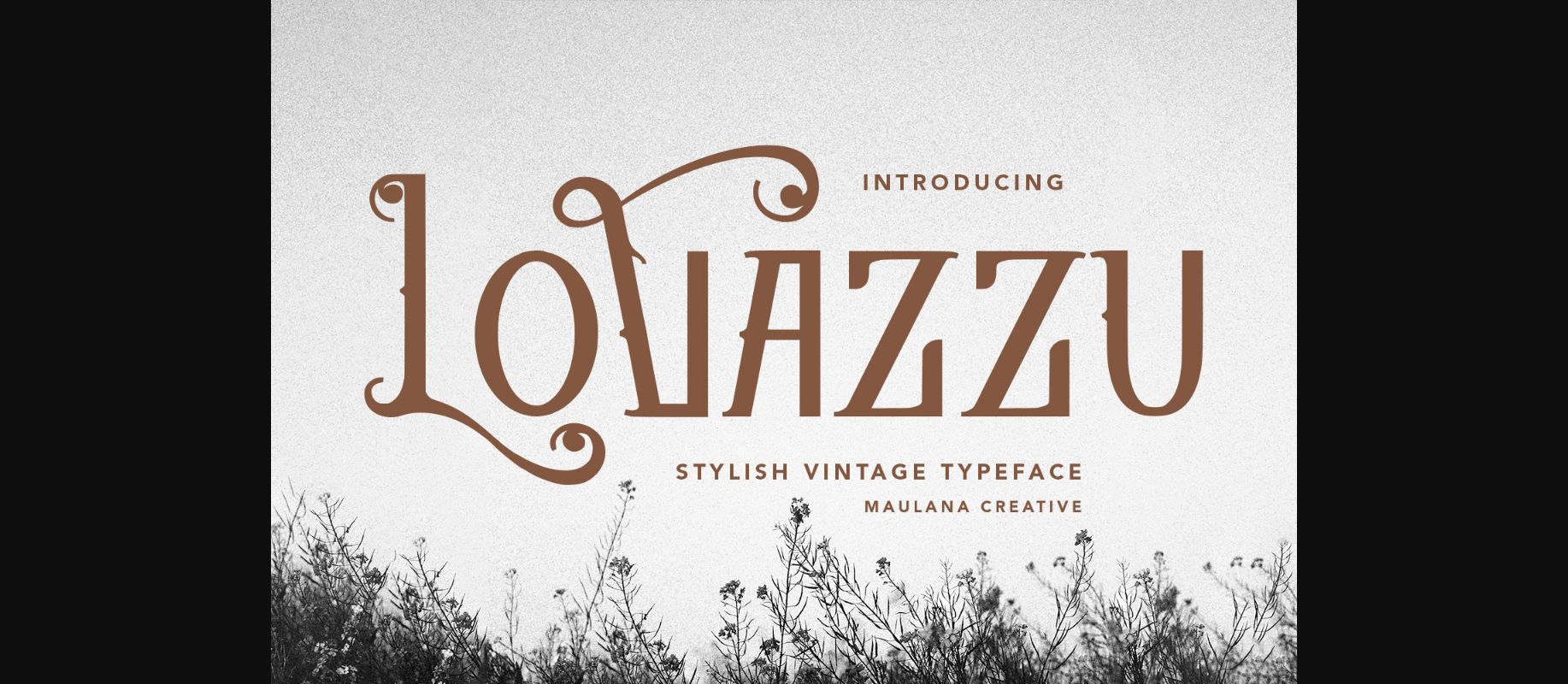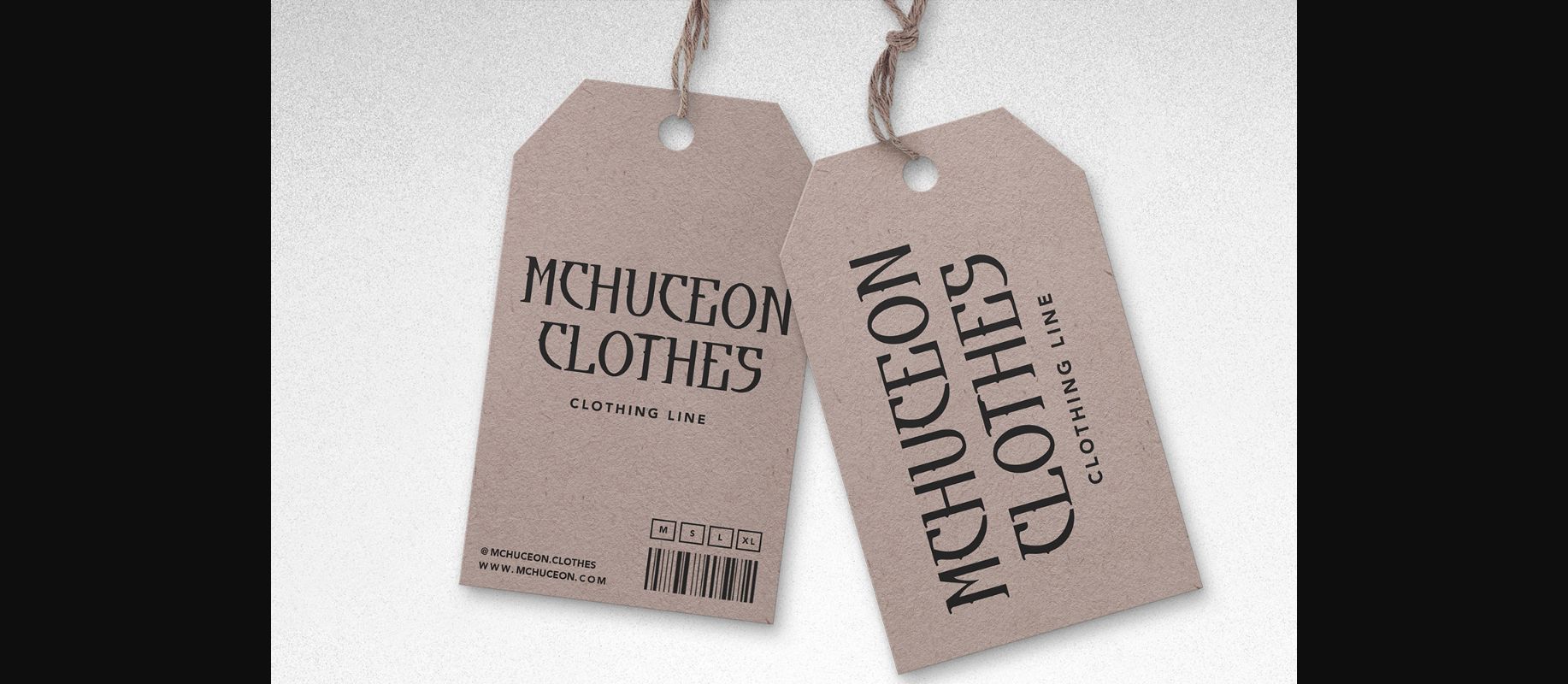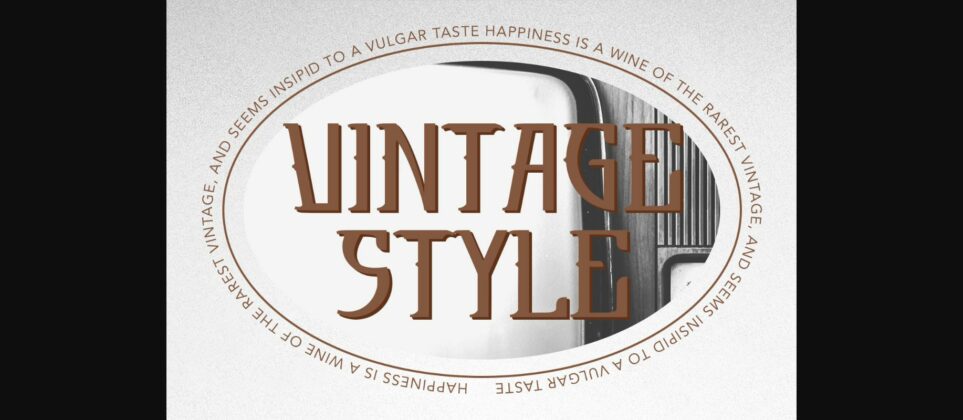
About Lovazzu Font
Lovazzu is a stylish and sophisticated display font that captures the vintage spirit of old-fashioned signage. With stylish swirls and elegant curves, this font is perfect for creating eye-catching logos, titles, and headings. Its timeless design exudes a sense of nostalgia and class, making it a popular choice for branding and advertising projects that require a touch of retro charm.